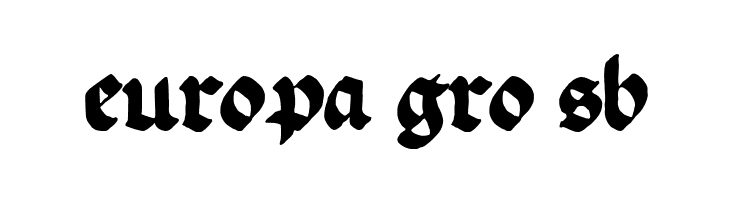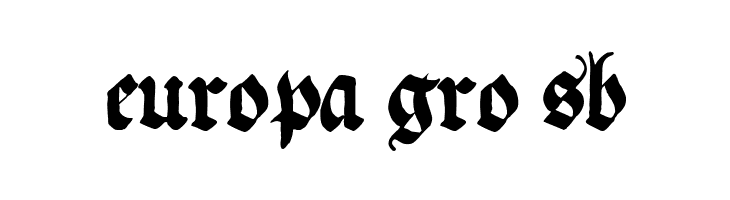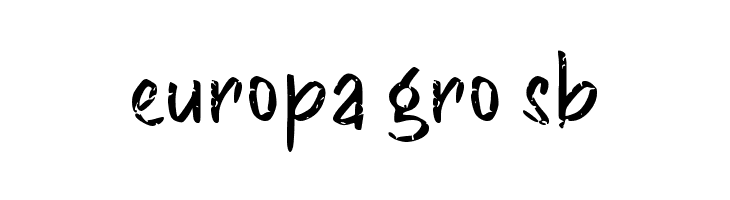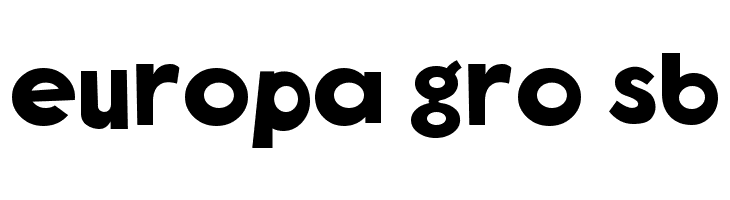
A bold, brush-style script font with high contrast and dynamic flow.
A classic serif font with elegant curves and medium contrast, suitable for both display and text.
A bold, geometric typeface with a modern, blocky design.
A bold, elegant script font with flowing, connected characters.
A geometric, brick-like font with bold outlines and internal line details.
A whimsical, handwritten font with flowing, cursive-like strokes and artistic flair.
An elegant, high-contrast script font with flowing, cursive characters.
A bold, brush-style font with an energetic and expressive appearance.
A bold, gradient, italic font with a three-dimensional, geometric design.
A bold, decorative font with a vintage gradient effect and three-dimensional style.
A bold, decorative font with a three-dimensional effect and italic slant.
A bold, decorative font with a three-dimensional effect and geometric design.
A bold, dynamic script font with interconnected characters and high contrast.
A playful, hand-drawn font with artistic and whimsical characteristics.
An elegant italic typeface with dynamic slant and balanced contrast.
A tall, elegant serif font with sharp serifs and modern appeal.
A bold, decorative font with a dynamic echo effect.
A modern, geometric sans-serif font with clean lines and a structured appearance.
A bold, geometric font with a mix of solid and striped elements.
A bold, hand-drawn font with a rough, textured, and expressive style.
A bold, modern sans-serif font with uniform stroke width and high legibility.
A sophisticated script font with flowing, connected letters and decorative flourishes.
A geometric, modern outline font with angular lines and a futuristic style.
A bold, geometric font with angular shapes and a three-dimensional effect.
A bold, geometric font with a three-dimensional, futuristic design.
An elegant, cursive script font with a fluid, handwritten style.
An artistic font with characters resembling abstract faces in circular shapes.
Chaotic, spiky display font with bold, irregular strokes.
A bold, circular font with a playful and modern design.
A lively, flowing script font with bold, expressive characters.
A playful, casual handwritten font with smooth, flowing lines and rounded edges.
A playful, handwritten font with a casual and dynamic style.
A thin, modern font with expanded width and geometric design.